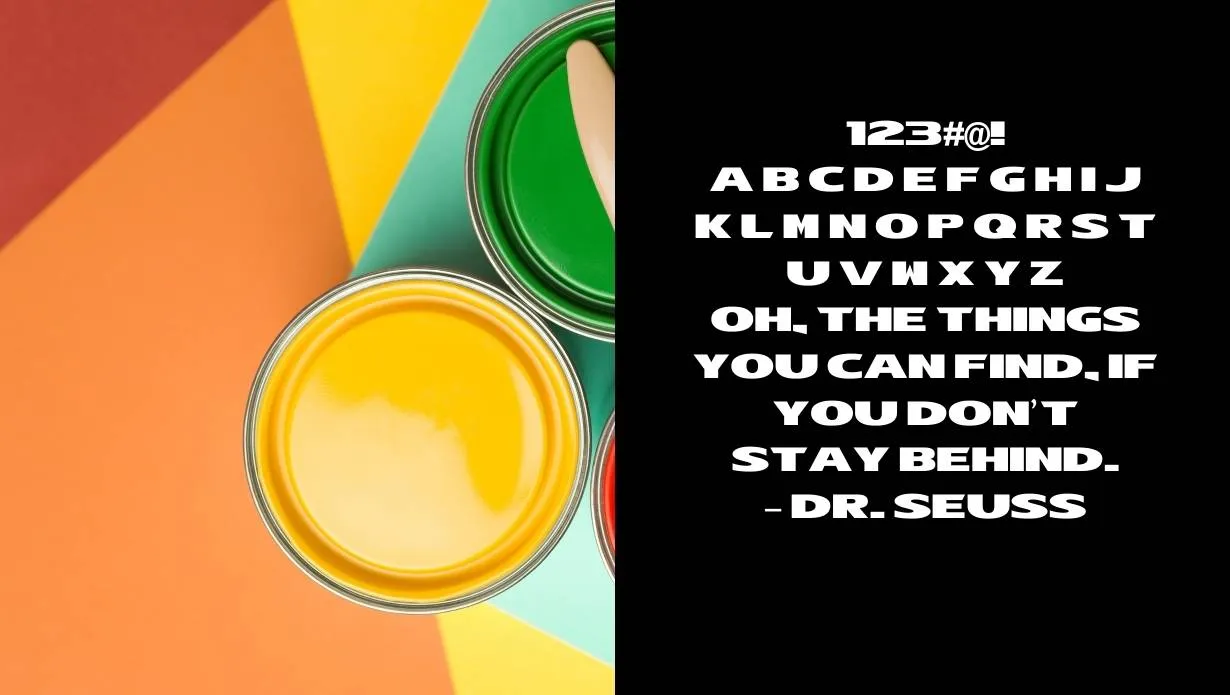
In this post, we present an awesome typeface that has the name Taco Bell Font. This classy typeface belongs to the Sans Serif font family. This stunning typeface was developed by a popular designer Taco Bell. In 2000, this cozy typeface was designed and released.
This stylish typeface includes the full set of very famous and stylish characters like uppercase, lowercase, icons, symbols, and so on. This cozy typeface has a soft and eye-catching look.
Taco Bell Font Family
| Name | Taco Bell Font |
| Designer | Taco Bell |
| Style | Sans seirf |